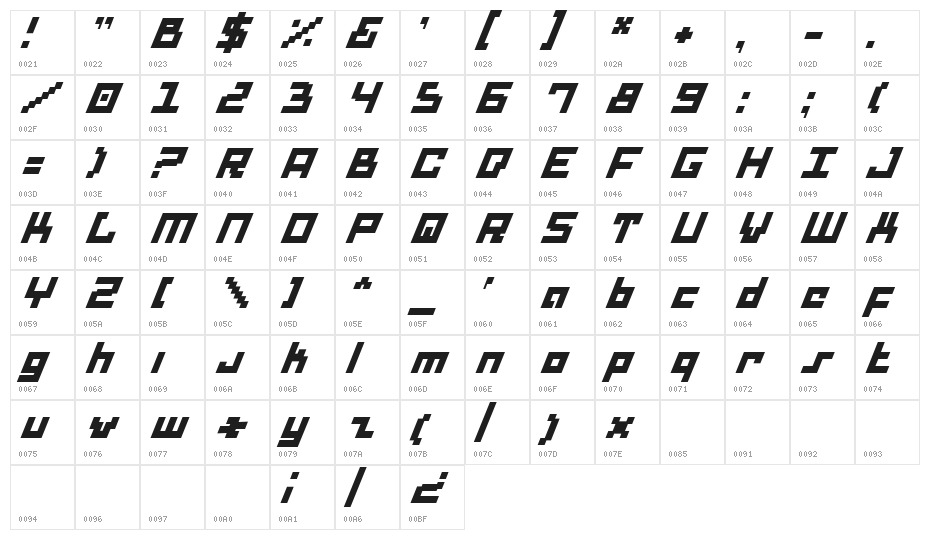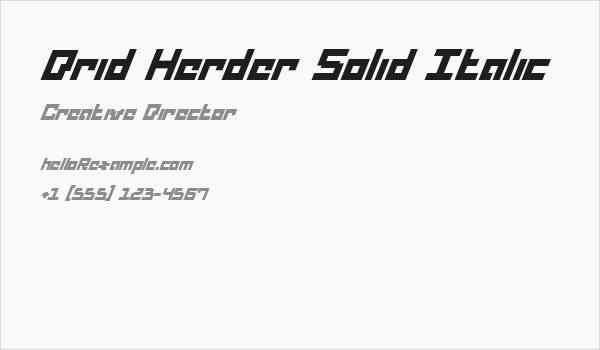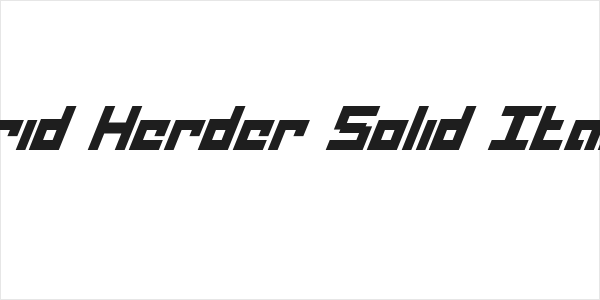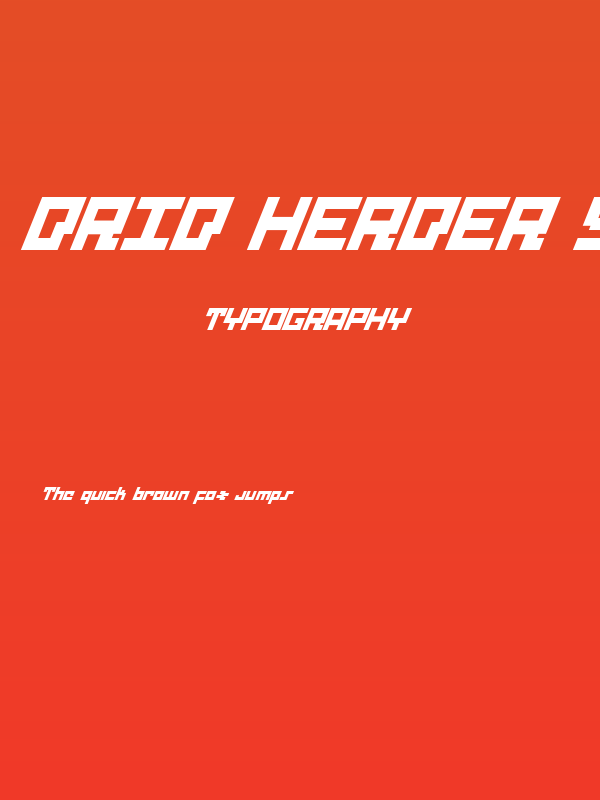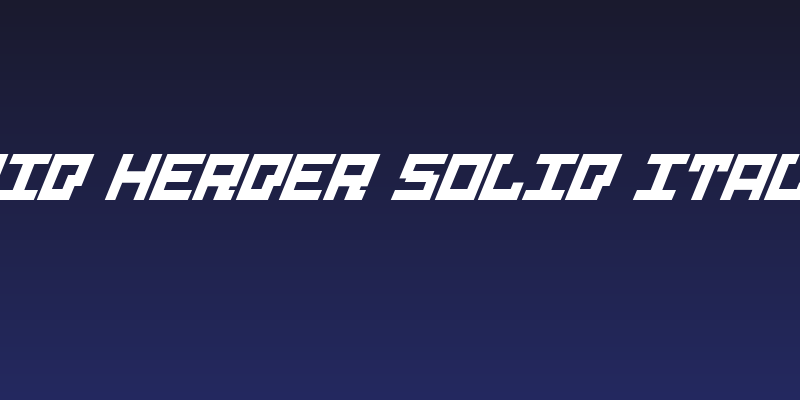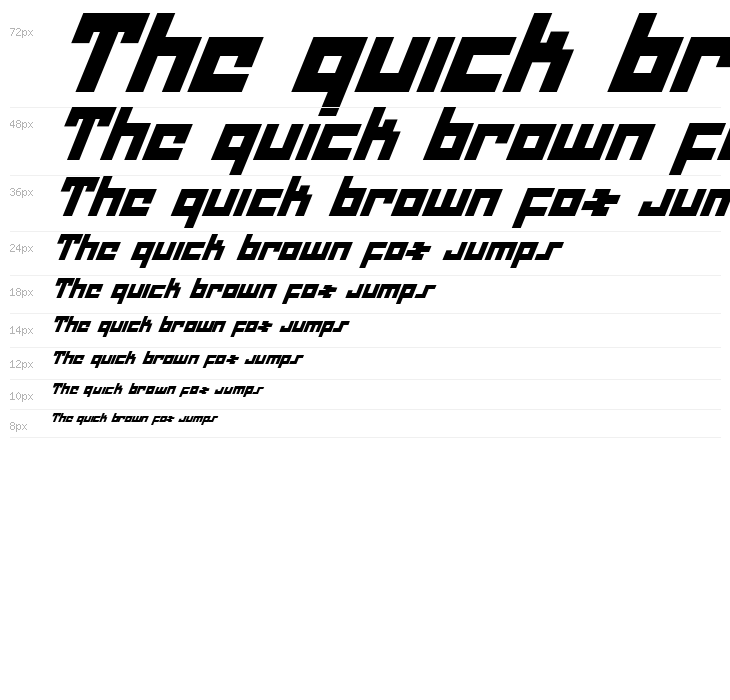
Drid Herder Solid Italic Font
Drid Herder Solid Italic Description
This font features a bold, angular design with a futuristic and dynamic feel. The characters are sharply defined with a solid, italicized slant, giving them a sense of movement and energy. The uppercase and lowercase letters maintain a consistent geometric style, with straight lines and sharp angles. The numbers and special characters follow the same design principles, ensuring uniformity across the font. The overall appearance is striking and modern, making it suitable for projects that require a bold statement.
| Proposed Projects | Ideal for sci-fi themed designs, video game titles, sports branding, and dynamic posters. |